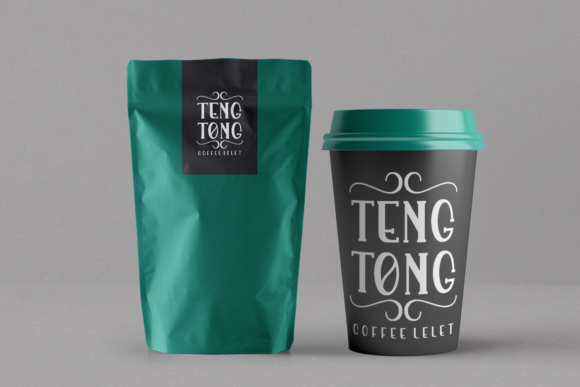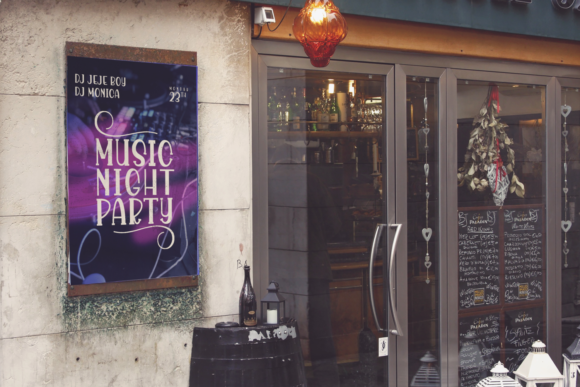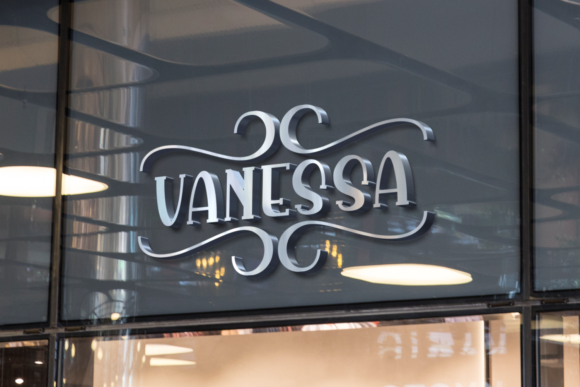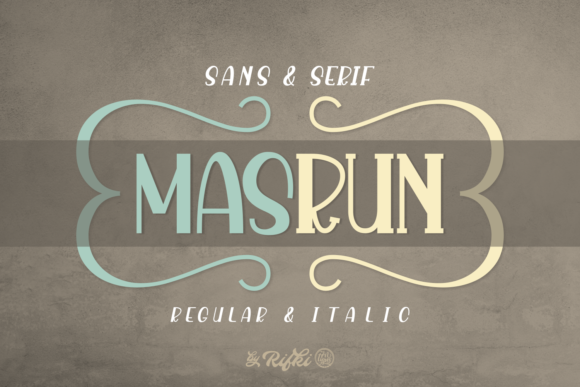
Introduction to Masrun Font
The Masrun is an amazing sans serif typeface.
It has an amazing readability and will add a modern, yet playful style to your designs Included are a regular and italic version which gives you the opportunity to create multiple unique designs with just this one download.
Masrun Font offers exceptional quality and versatility, making it a valuable addition to your design toolkit. Whether you’re creating for personal projects or commercial use, Masrun Font delivers professional results.